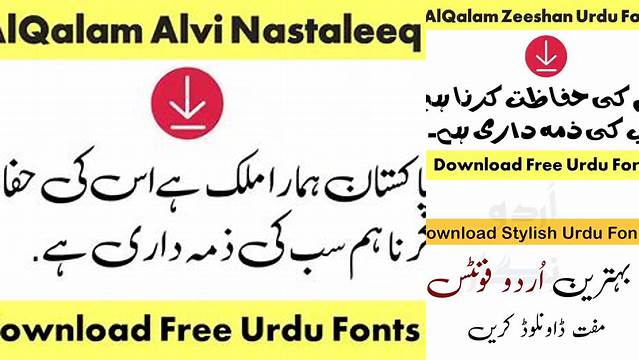
Are you looking to enhance your designs with beautiful and expressive Urdu fonts? Look no further! This comprehensive guide will walk you through the world of Urdu fonts, offering you a collection of over 500 stylish TTF fonts perfect for any project. Whether you're designing websites, creating social media graphics, or working on print materials, the right Urdu font can make all the difference. Let's dive in and explore the best options available for Urdu fonts download.
Why Use Stylish Urdu Fonts?
Stylish Urdu fonts can add a unique and elegant touch to your projects. Urdu, with its flowing script and rich history, has a distinct aesthetic that can captivate your audience. Using the right font can convey the tone and message you intend, whether it's formal, informal, modern, or traditional. The visual appeal of Urdu fonts can greatly enhance the readability and engagement of your content. When you choose a stylish Urdu font, you're not just selecting a typeface; you're choosing a visual representation of the language's cultural heritage and artistic expression. For designers, writers, and content creators, having access to a diverse range of Urdu fonts is essential for creating compelling and visually appealing work. These fonts can be used in a variety of contexts, from creating stunning logos and branding materials to designing elegant invitations and literary works. Moreover, using high-quality Urdu fonts ensures that your text is legible across different mediums, whether it's displayed on a screen or printed on paper. This is particularly important in the digital age, where content is consumed on various devices with different screen resolutions. By selecting fonts that are optimized for both print and digital use, you can ensure a consistent and professional look for your work. Furthermore, the availability of a wide range of Urdu fonts allows for greater creative flexibility. You can experiment with different styles, weights, and designs to find the perfect font that complements your project's overall aesthetic. This versatility is crucial for designers who want to create unique and memorable pieces. So, whether you're a seasoned professional or just starting out, investing in a collection of stylish Urdu fonts is a worthwhile endeavor that can significantly elevate the quality of your work. These fonts not only enhance the visual appeal but also pay homage to the rich linguistic and artistic traditions of the Urdu language.
FontsGeek: FontsGeek is another fantastic resource for finding both free and premium Urdu fonts. The website offers a wide variety of styles, and its search and filtering options make it easy to find the perfect font for your project. FontsGeek's collection includes everything from elegant scripts to bold display fonts, ensuring that you have the variety you need to create stunning designs. The site also provides detailed previews of each font, allowing you to see how it looks in different sizes and contexts. This is particularly helpful for ensuring that the font is legible and visually appealing in your project. FontsGeek also offers a range of filtering options, including the ability to sort fonts by style, weight, and popularity. This makes it easy to narrow down your choices and find the perfect font for your needs. The site also features articles and tutorials on typography and design, making it a valuable resource for designers of all skill levels. With its extensive collection and helpful features, FontsGeek is a great place to download Urdu fonts for any project.
Finding and using stylish Urdu fonts can greatly enhance your design projects. With a wide variety of options available, you can create stunning visuals that capture the essence of the Urdu language and culture. Remember to explore different websites, install fonts correctly, and choose fonts that match your project's needs. Happy designing, guys! Whether you're working on personal projects or professional designs, the right Urdu font can make all the difference. By following the tips and resources outlined in this guide, you'll be well-equipped to create beautiful and expressive designs that stand out. So go ahead, download Urdu fonts, and let your creativity flow!